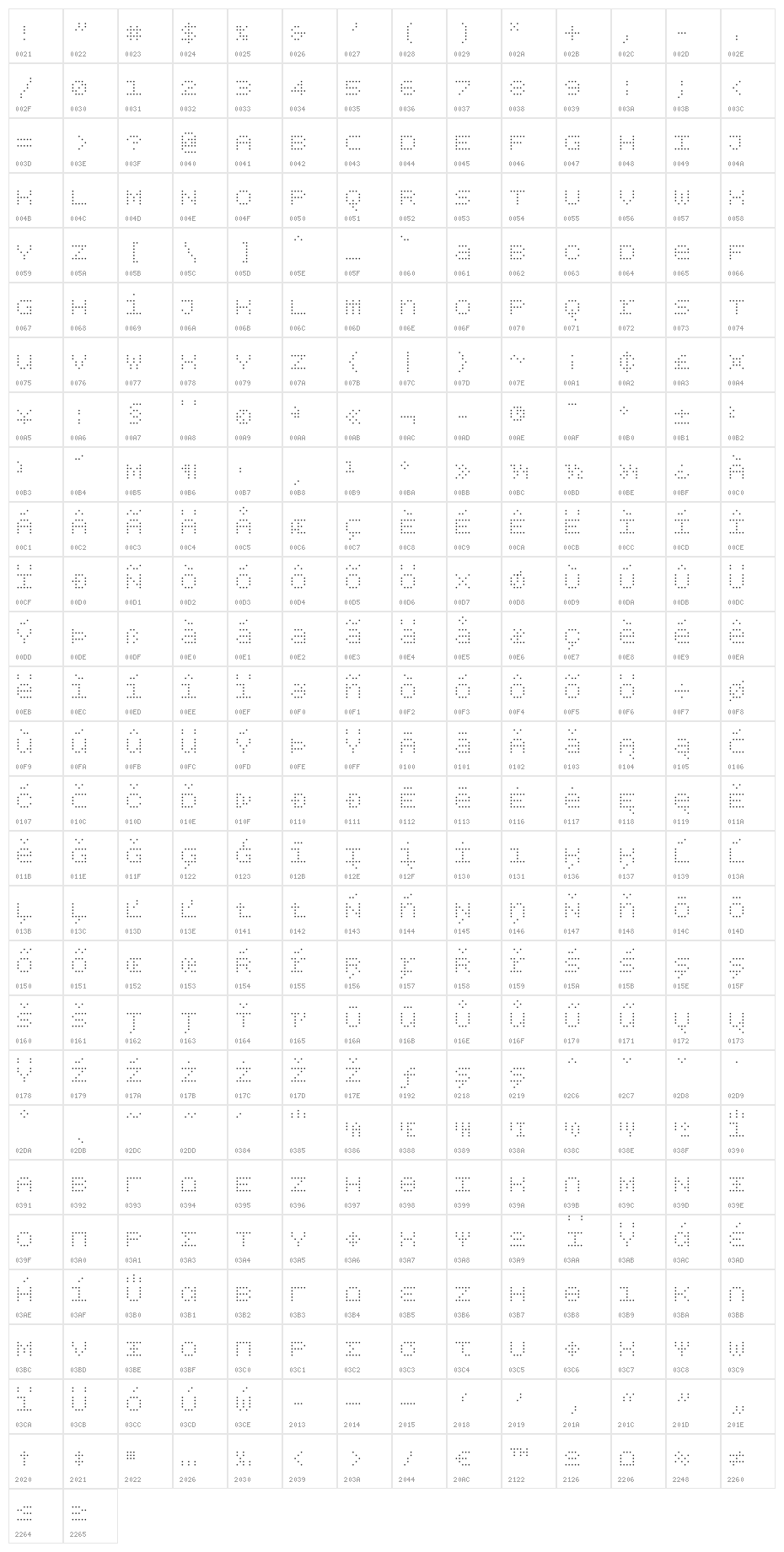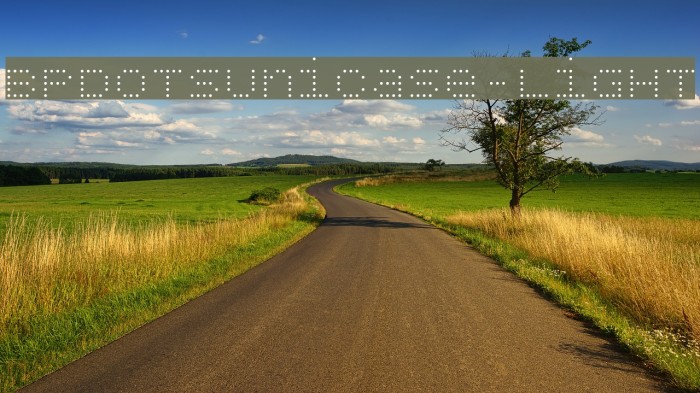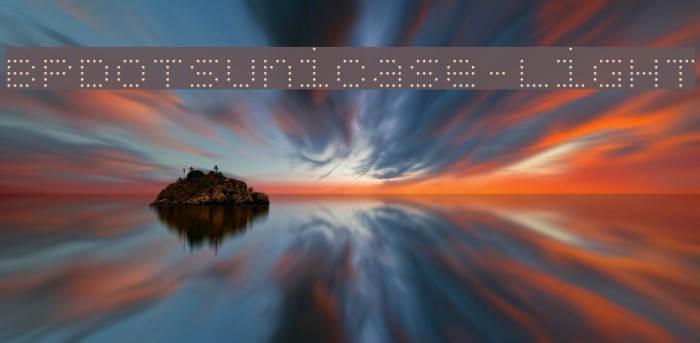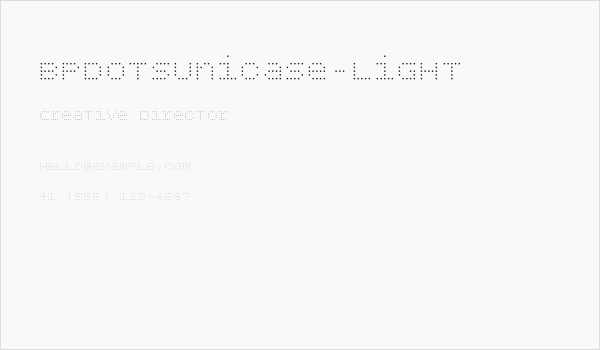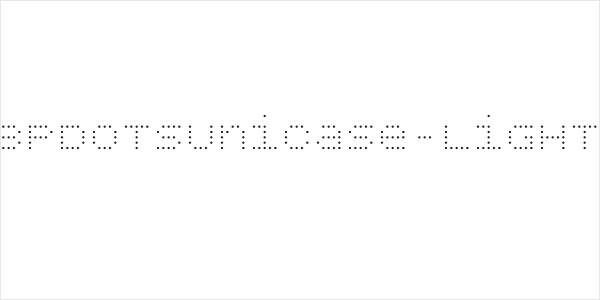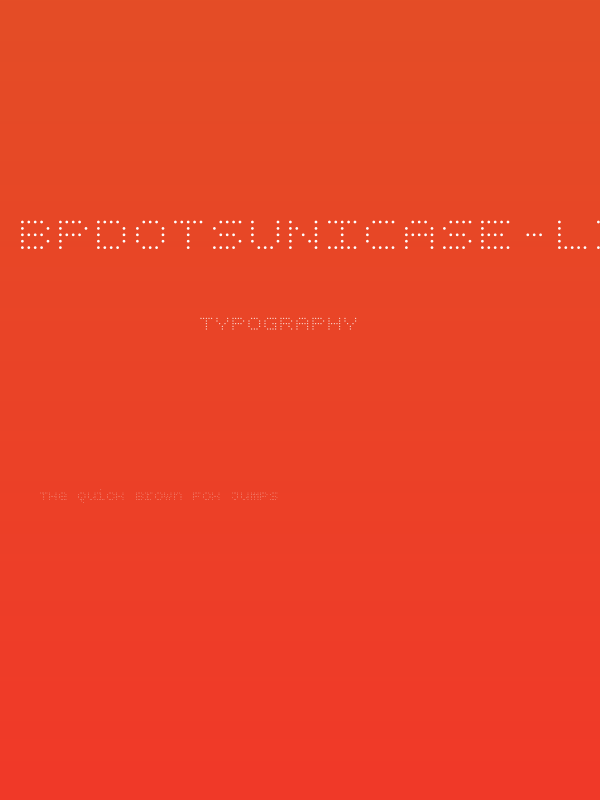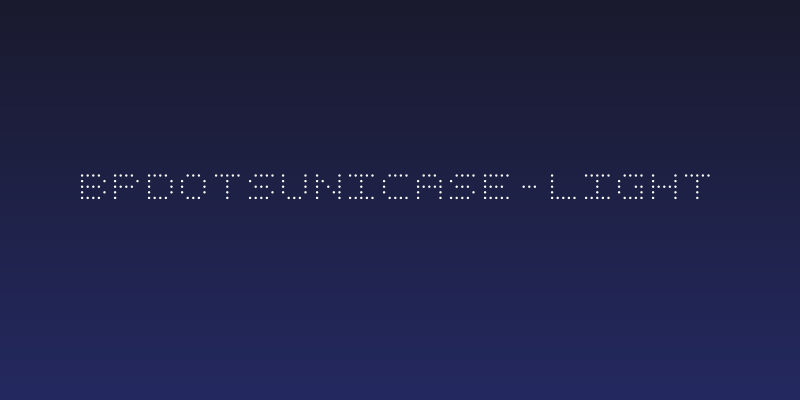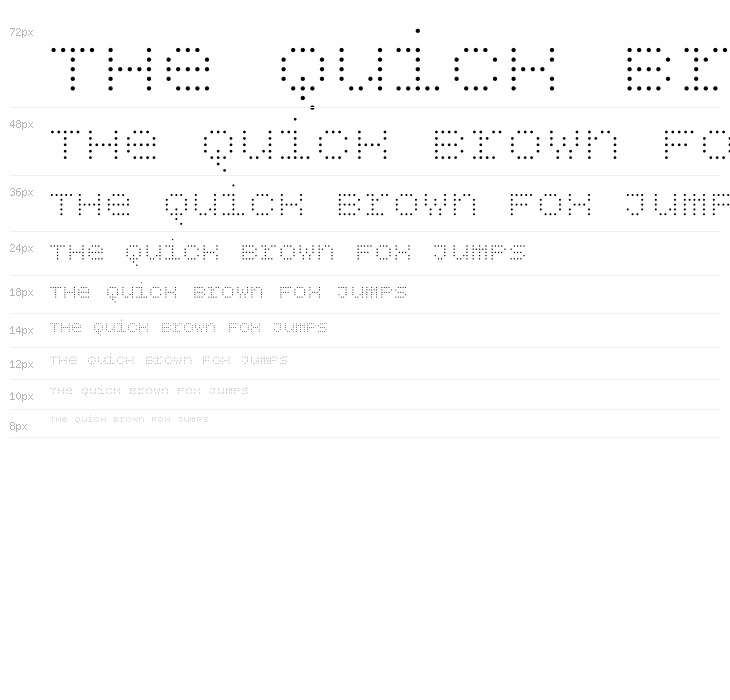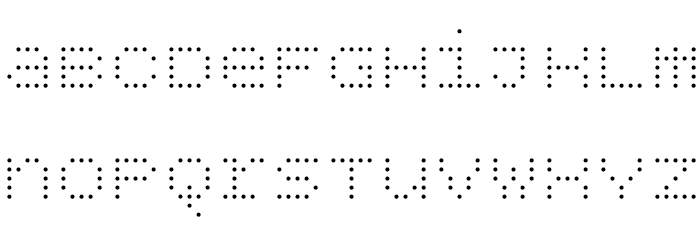
BPdotsUnicase-Light Font
BPdotsUnicase-Light Description
This font features a unique dotted design where each character is composed of evenly spaced dots, creating a modern and digital aesthetic. The uppercase and lowercase letters are uniformly styled, maintaining a consistent appearance across the alphabet. Numbers and special characters follow the same dotted pattern, ensuring a cohesive look. The font's light weight and geometric structure make it suitable for digital displays and creative projects that require a futuristic or tech-inspired feel. Its distinct style is eye-catching and can be used to add a playful yet sophisticated touch to various designs.
| Use Case | Headlines, Logos, Digital displays |
| Proposed Projects | Ideal for digital displays, tech-themed designs, creative posters, and modern branding projects. |